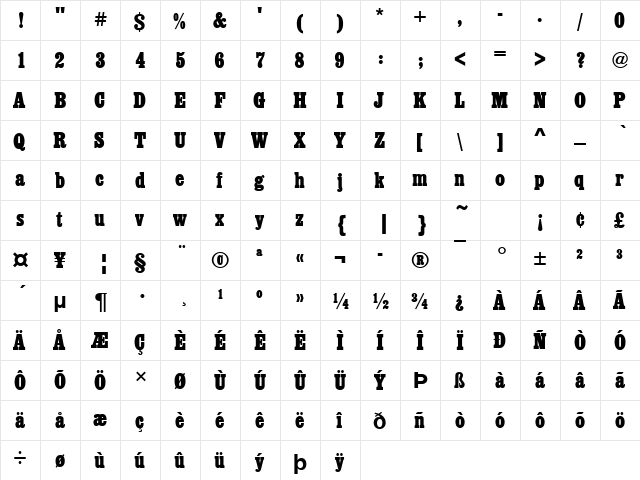
Egyptienne Becker D Bold Cond Regular
Design Context for Egyptienne Becker D Bold Cond Typeface
Egyptienne Becker D Bold Cond is a composed and adaptable typeface that performs quietly and consistently across a wide range of design contexts. The heavy weight commands attention and anchors typographic hierarchies. Its narrow stance lets it pack a punch even in space-constrained designs.
Pro Tip: Use Egyptienne Becker D Bold Cond in both headline and body roles to test its range before committing to a single application.